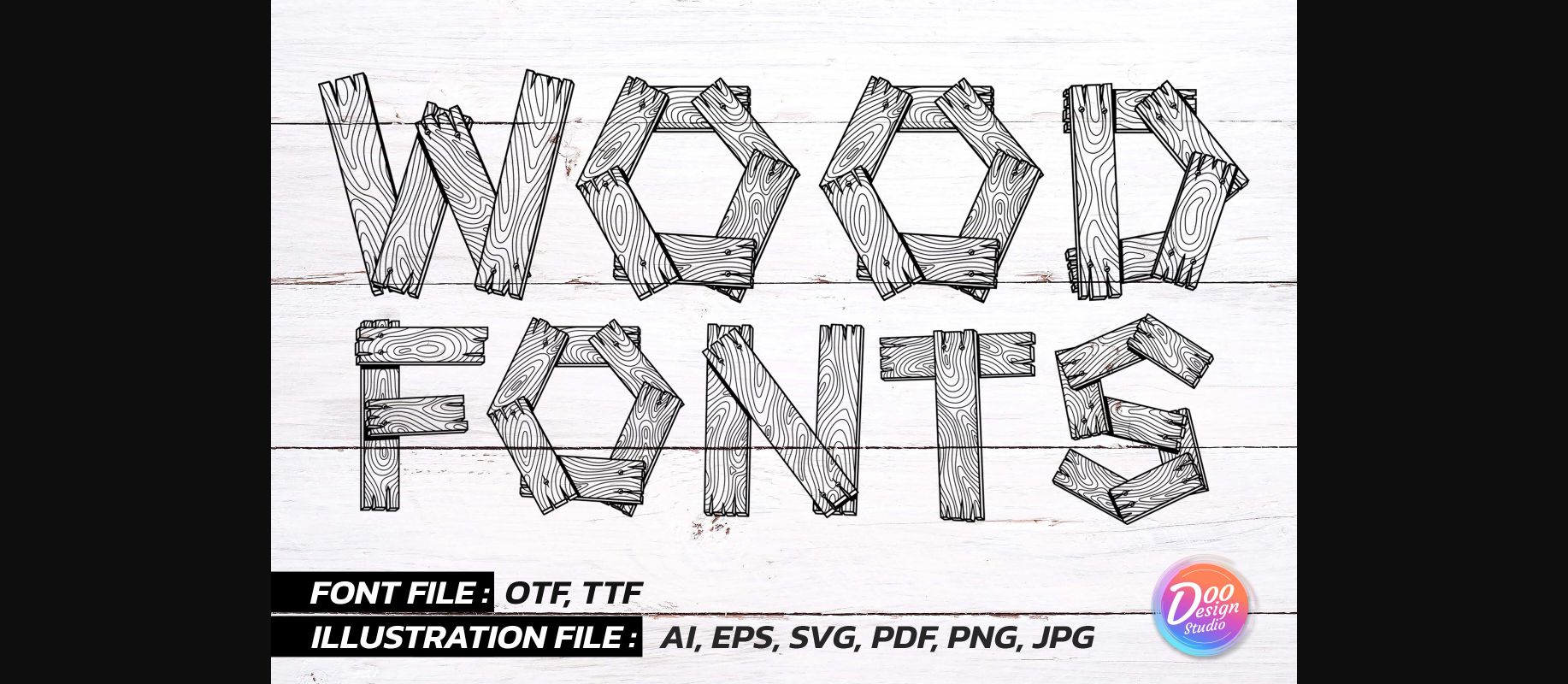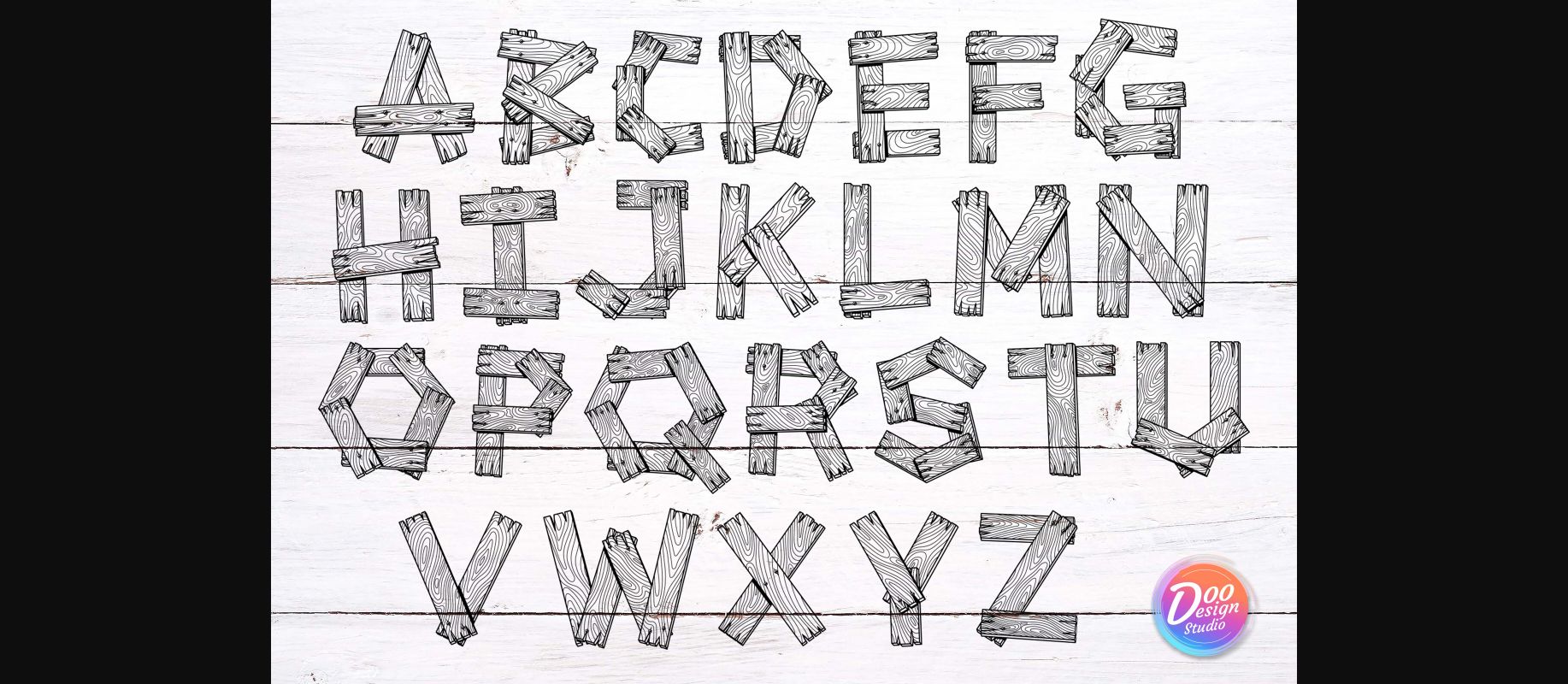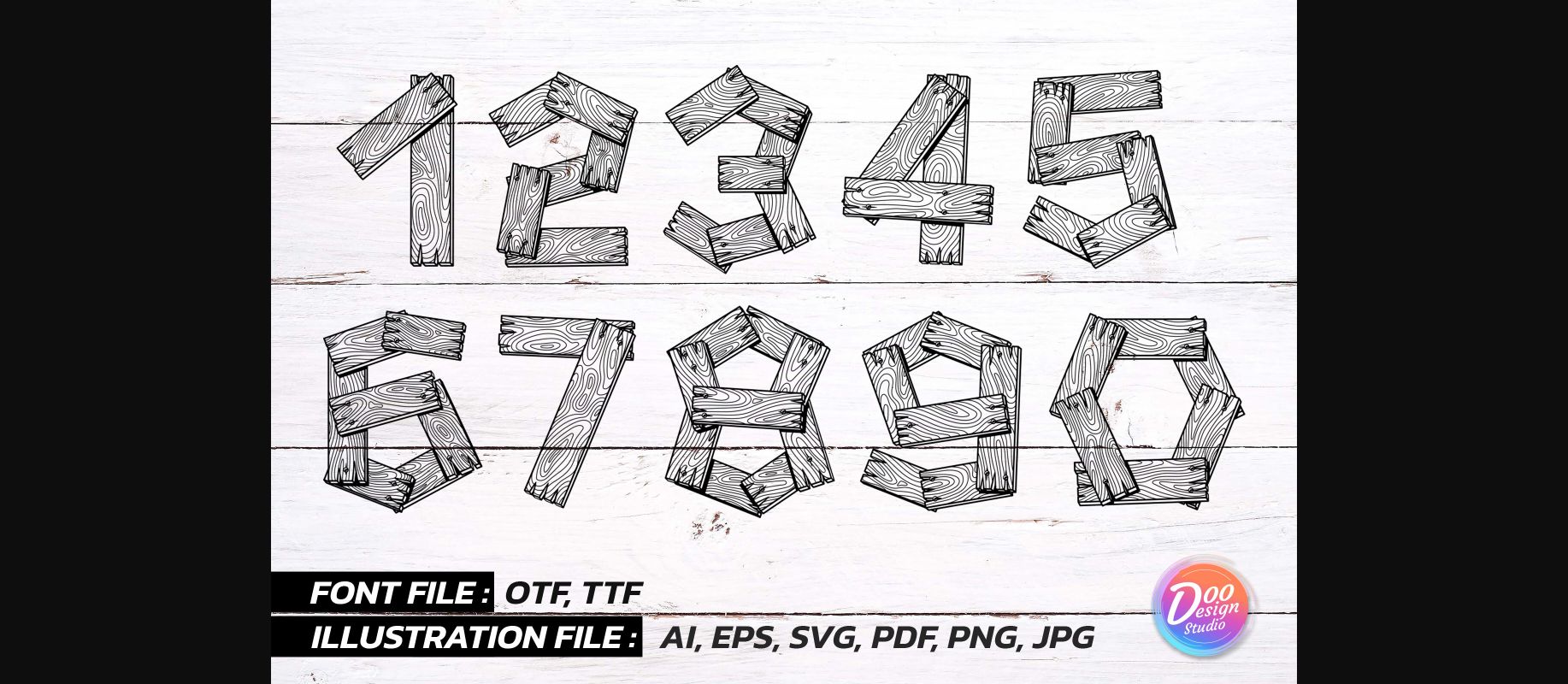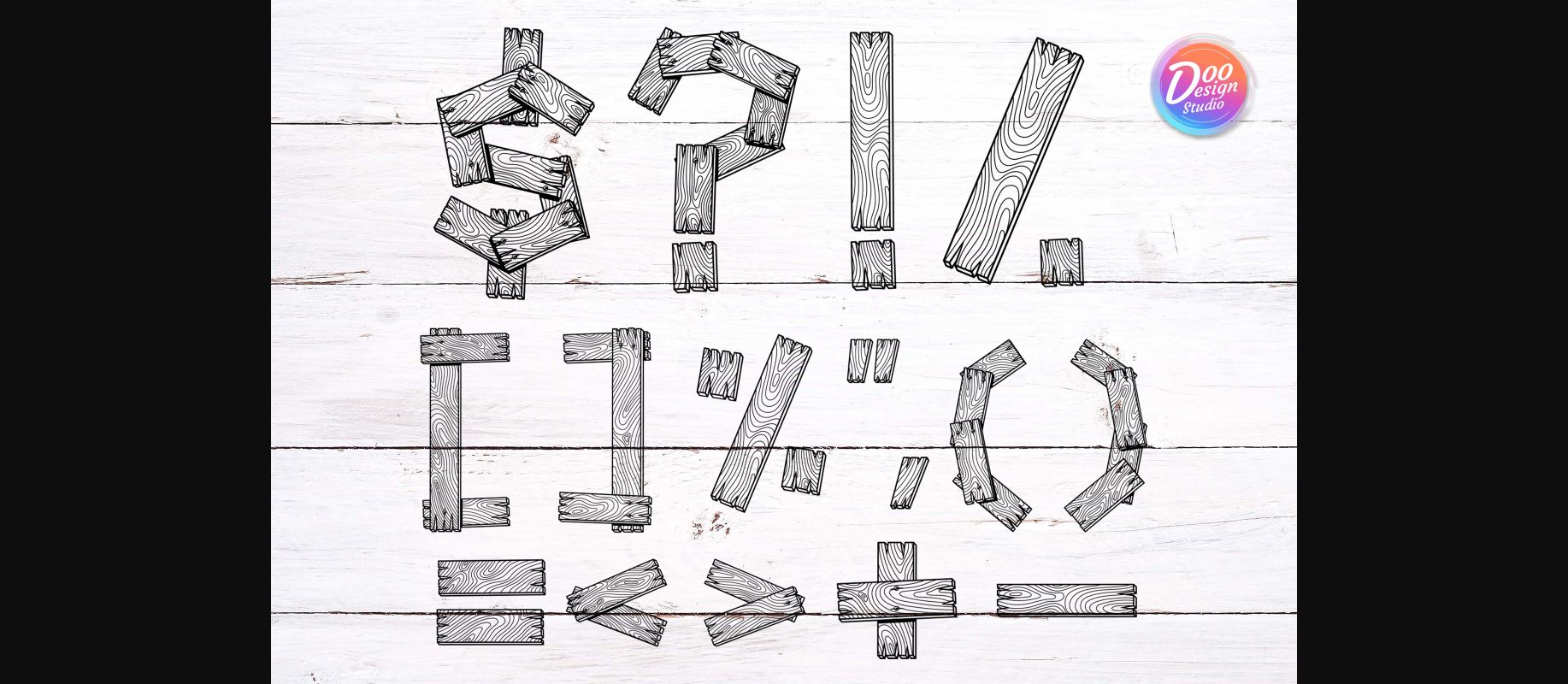
Wooden Plank Font
About Wooden Plank Font
Wooden Plank font is a rustic and charming typeface that brings the warmth and character of wood to your designs. Each letter is meticulously crafted to resemble weathered wooden planks, adding a touch of natural beauty and authenticity to your projects. Whether you’re creating signage, invitations, or rustic-themed artwork, Wooden Plank font adds a touch of rustic elegance to your text.